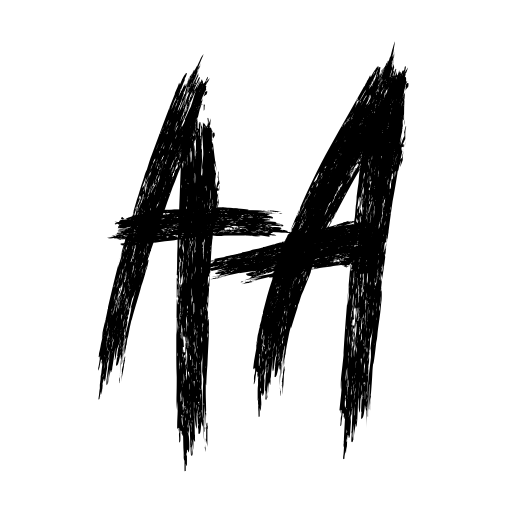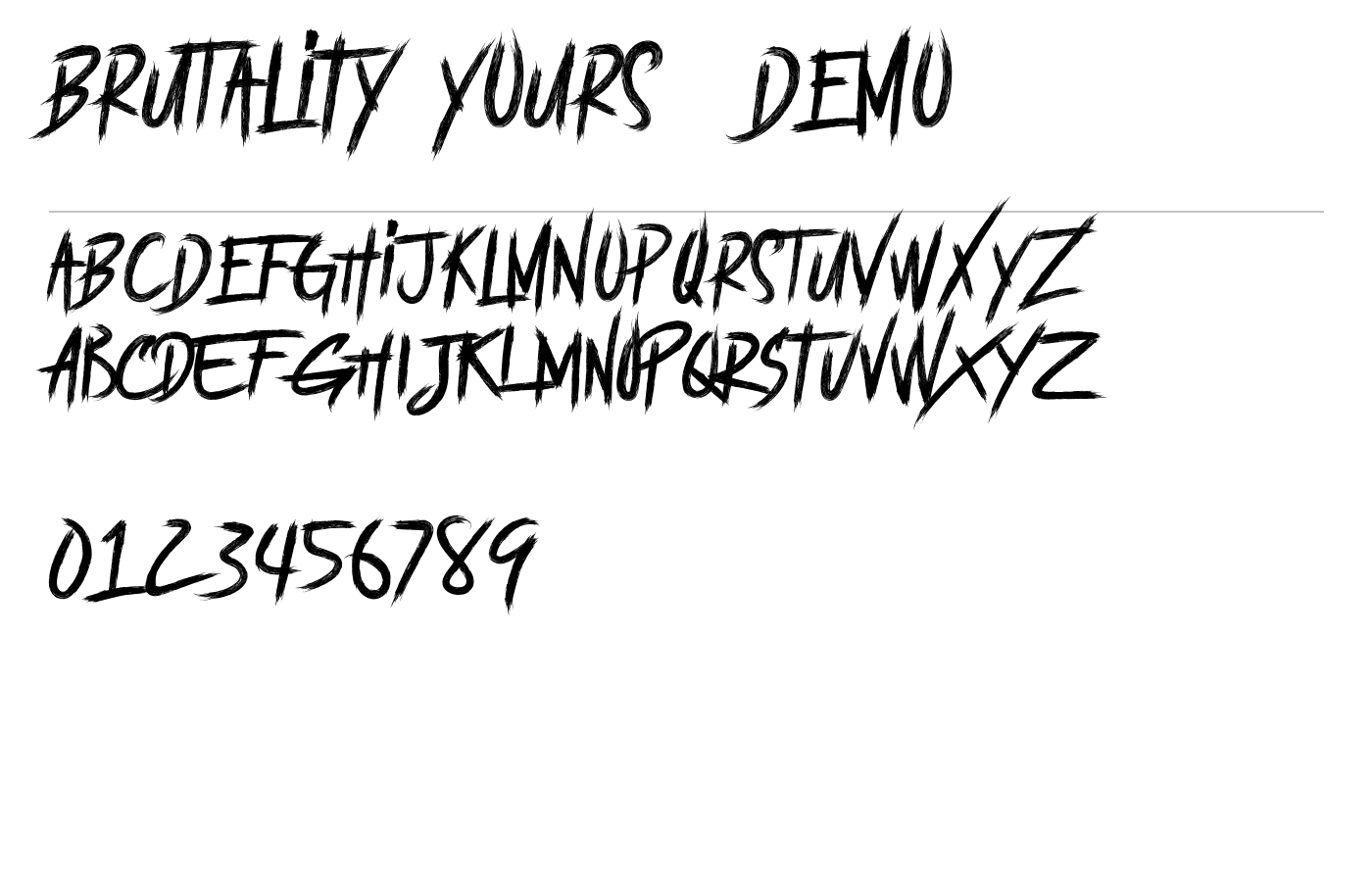
BRUTALITY YOURS DEMO is an expressive, hand-drawn sans serif font with a bold, rough brushstroke style that conveys energy and intensity. Its tall, narrow letterforms and jagged edges give it a raw, edgy personality, making it ideal for dynamic designs like posters, music branding, or urban streetwear labels. This font’s aggressive and unpolished look commands attention and adds a rebellious, creative vibe to any project.
BRUTALItY YOURS DEMO Font
About BRUTALItY YOURS DEMO Font